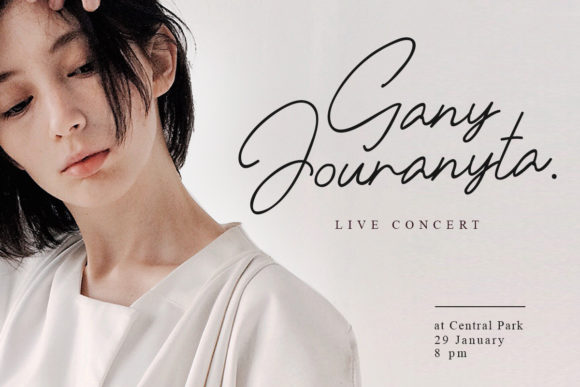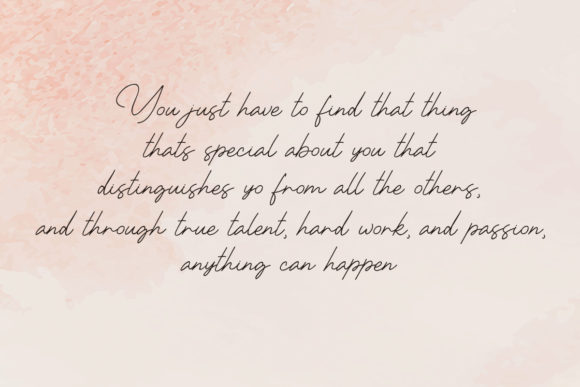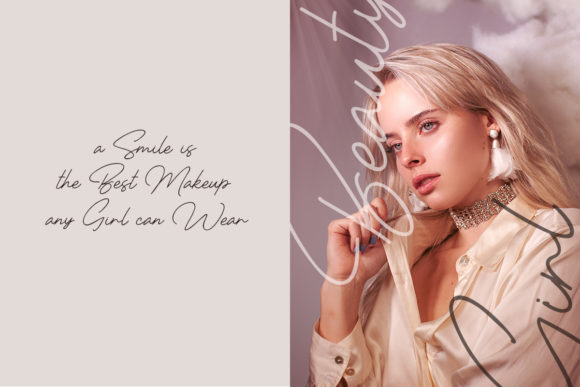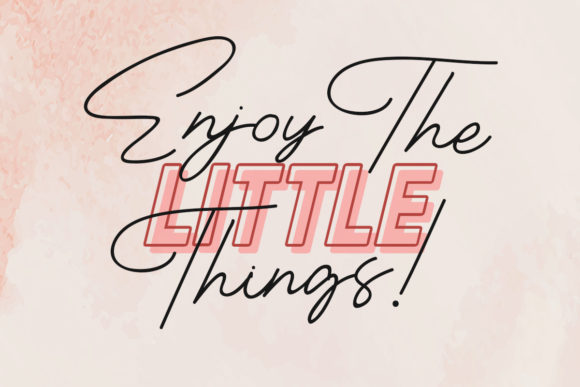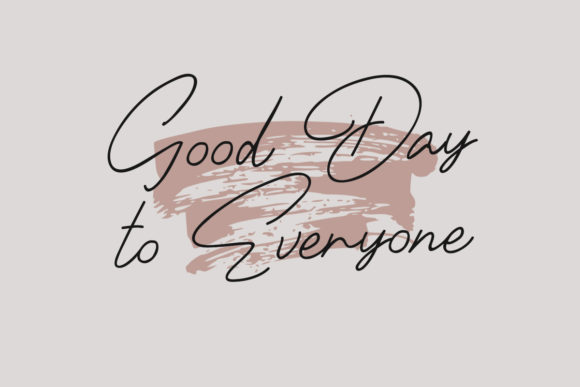
Bilanesa Font: Elevate Your Designs with Elegance and Sophistication
In the world of typography, few fonts manage to strike a balance between timeless elegance and modern friendliness. Bilanesa Font is one such exceptional typeface that has captured the hearts of designers and crafters alike. This magical script font is carefully crafted with a touch of elegance, making it perfect for creating original and outstanding designs.
The Essence of Bilanesa Font
Bilanesa is a beautiful combination of classic style and authentic calligraphy. Its incredibly classic design ensures that it can be used in a variety of projects, from wedding invitations and branding materials to packaging and digital media. The font’s friendly feel makes it approachable and relatable, allowing designers to connect with their audience on a deeper level.
Key Features of Bilanesa Font
- Timeless Elegance: Bilanesa boasts a classic style that never goes out of fashion, making it a valuable addition to any designer’s font collection.
- Authentic Calligraphy: The font’s authentic calligraphy feel adds a touch of sophistication and luxury to any design.
- Friendly Feel: Bilanesa’s friendly and approachable style makes it perfect for designs that require a personal touch.
- Versatility: This font can be used in a wide range of projects, from digital media to print materials.
Why Choose Bilanesa Font?
With so many fonts available, why should designers and crafters choose Bilanesa? Here are a few compelling reasons:
- Unique and Original: Bilanesa’s unique design ensures that your designs stand out from the crowd and leave a lasting impression.
- Easy to Read: The font’s clear and legible design makes it easy to read, even in small sizes.
- High-Quality: Bilanesa is a high-quality font that is carefully crafted to ensure that it meets the needs of professional designers.
Using Bilanesa Font in Your Designs
So, how can you incorporate Bilanesa Font into your designs? Here are a few ideas to get you started:
- Wedding Invitations: Bilanesa’s elegant design makes it perfect for wedding invitations, save-the-dates, and other wedding-related materials.
- Branding Materials: Use Bilanesa to create a luxurious and sophisticated brand identity that reflects your company’s values and personality.
- Packaging Design: Add a touch of elegance to your packaging design with Bilanesa, making your products stand out on store shelves.
- Digital Media: Use Bilanesa in your digital media, such as social media graphics, blog posts, and email newsletters, to add a touch of sophistication and style.
Tips and Tricks for Working with Bilanesa Font
To get the most out of Bilanesa Font, here are a few tips and tricks to keep in mind:
- Pair with Other Fonts: Experiment with pairing Bilanesa with other fonts to create a unique and visually appealing design.
- Adjust Font Size and Style: Don’t be afraid to adjust the font size and style to suit your design needs.
- Use in Combination with Images: Use Bilanesa in combination with images to create a stunning visual effect.
In conclusion, Bilanesa Font is a magical script font that offers a perfect blend of timeless elegance and authentic calligraphy. Its friendly feel and versatile design make it an excellent choice for designers and crafters looking to create original and outstanding designs. Whether you’re working on a wedding invitation, branding materials, or digital media, Bilanesa is sure to elevate your designs to the next level.